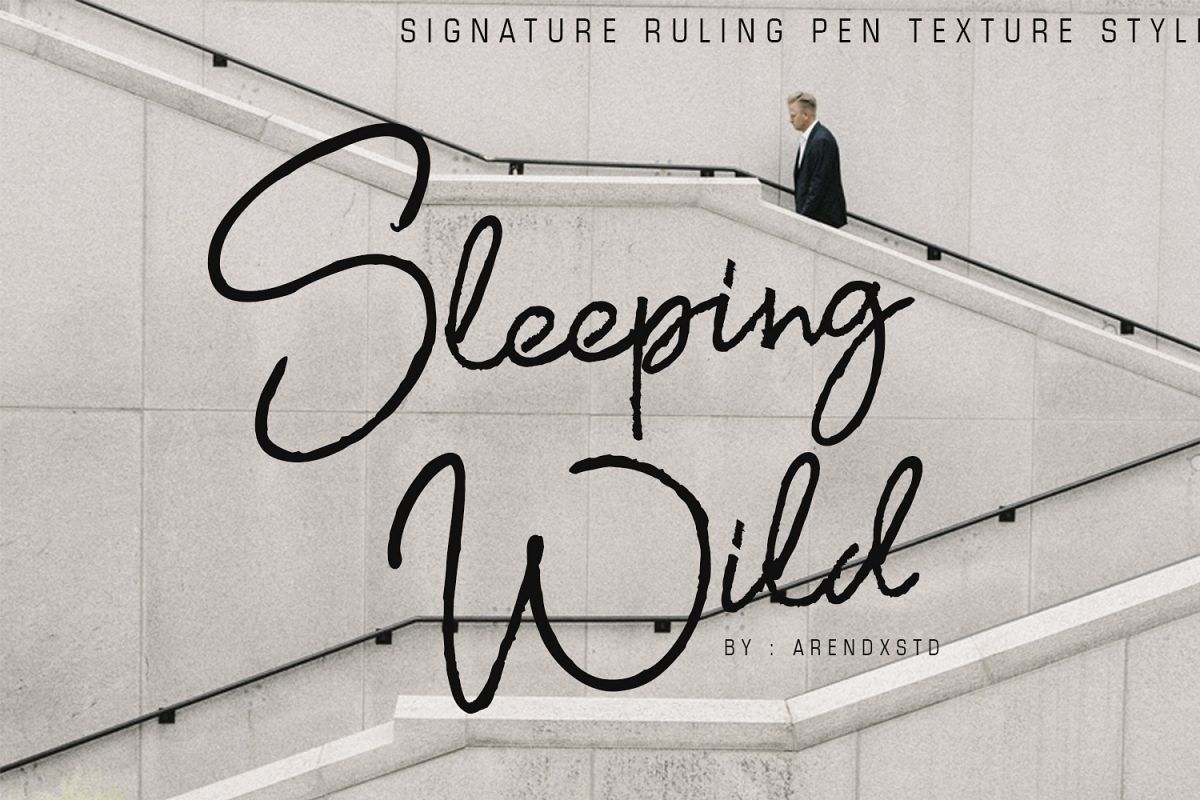
Sleeping WIld Signature
Sleeping Wild
Sleeping WIld is a signature handwritten font package with a personal charm. With Ruling Pen Texture you can feel different style here
Sleeping WIld contains upper and lower case letters, numbers and various complete signs.